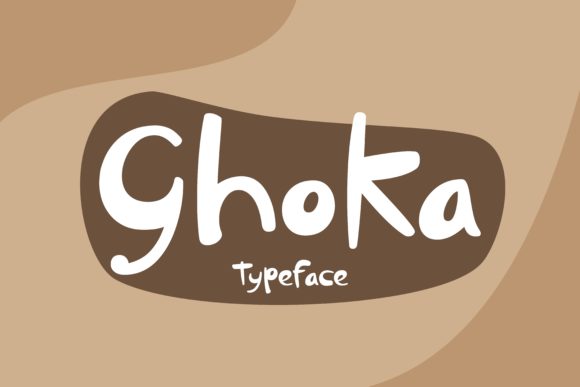
Gokha Font: A Contemporary Approach to Design
Gokha is a unique and captivating font that has been making waves in the design world. This bold and playful script is both whimsical and serious, making it a versatile choice for designers looking to add a touch of personality to their work. In this article, we’ll dive into the world of Gokha font, exploring its features, benefits, and uses, as well as the design inspiration behind this contemporary script.
What is Gokha Font?
Gokha is a modern script font that boasts a bold and playful aesthetic. Its unique blend of whimsy and seriousness makes it an excellent choice for designers looking to add a touch of personality to their work. The font features a distinctive, hand-drawn look that is both eye-catching and memorable.
One of the standout features of Gokha is its bold and expressive letterforms. The font’s letters are designed to be highly legible, making it an excellent choice for use in a variety of applications, from headings and titles to body copy and more.
The Design Inspiration Behind Gokha
Gokha’s design inspiration is rooted in a contemporary approach to typography. The font’s creator sought to create a script that was both playful and serious, with a unique blend of bold and whimsical elements. The result is a font that is both eye-catching and sophisticated.
The design of Gokha is influenced by a range of sources, including traditional script fonts, modern digital typography, and even elements of graffiti and street art. This eclectic mix of influences gives Gokha its distinctive look and feel, making it a standout in the world of typography.
The Benefits of Using Gokha Font
So why choose Gokha font for your design projects? Here are just a few benefits of using this versatile and eye-catching script:
- Unique and memorable: Gokha’s bold and playful design makes it an excellent choice for designers looking to create a lasting impression.
- Highly legible: Despite its bold and expressive letterforms, Gokha is highly legible, making it suitable for use in a range of applications.
- Versatile: Gokha’s unique blend of whimsy and seriousness makes it an excellent choice for a wide range of design projects, from branding and advertising to packaging and more.
Using Gokha Font in Your Design Projects
Gokha’s versatility makes it an excellent choice for a wide range of design projects. Here are just a few examples of how you can use Gokha font in your work:
- Branding and advertising: Gokha’s bold and playful design makes it an excellent choice for use in branding and advertising campaigns.
- Packaging design: Gokha’s unique and eye-catching design makes it an excellent choice for use in packaging design, adding a touch of personality to product labels and packaging.
- Digital design: Gokha’s clean and highly legible design makes it an excellent choice for use in digital applications, such as website headers, social media graphics, and more.
Pairing Gokha with Other Fonts
When it comes to pairing Gokha with other fonts, there are a few things to keep in mind. Here are some tips for creating harmonious font combinations with Gokha:
- Contrast with a serif font: Pairing Gokha with a serif font can create a striking contrast that adds visual interest to your design.
- Match with a similar script font: Pairing Gokha with a similar script font can create a cohesive and harmonious look that adds a touch of personality to your design.
- Use a bold font for headings: Using Gokha as a bold font for headings can create a striking contrast with a more subdued font used for body copy.
Gokha font is a unique and captivating script that offers a fresh and contemporary approach to design. Its bold and playful aesthetic makes it an excellent choice for designers looking to add a touch of personality to their work. With its highly legible design and versatile uses, Gokha is an excellent addition to any designer’s toolkit.